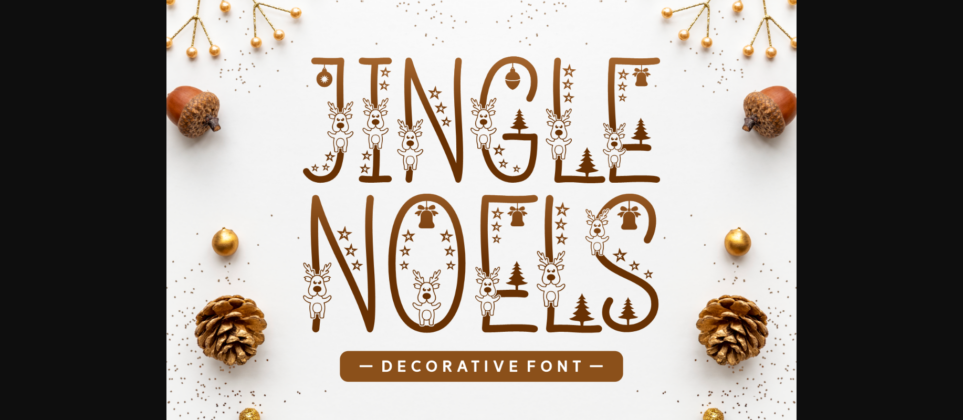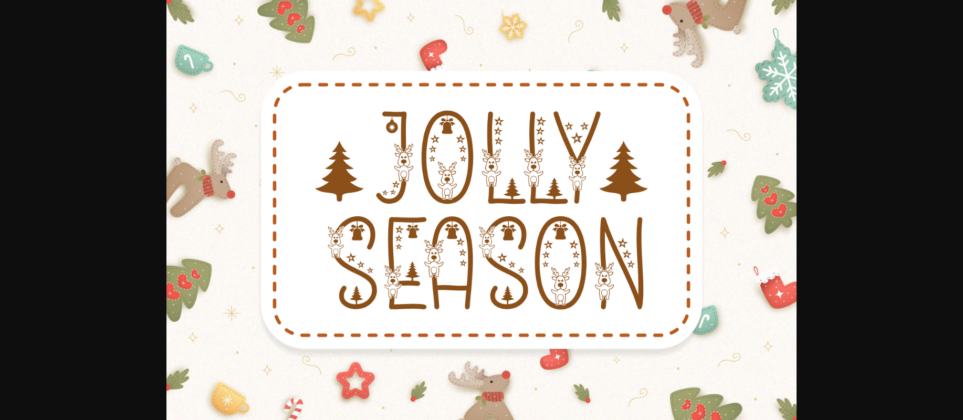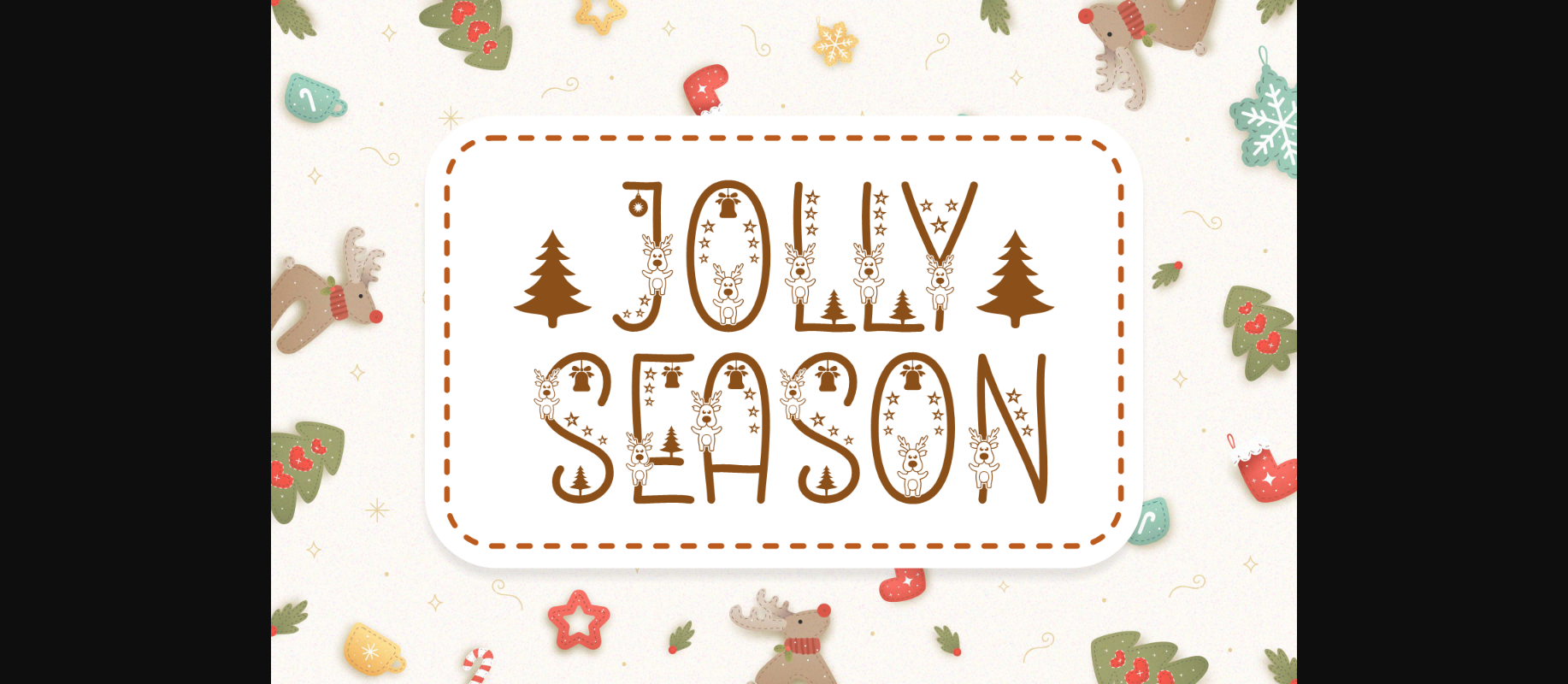
About Jingle Noels Font
Jingle Noels is the perfect decorative font for your Christmas projects. Its festive and cute ornaments will enhance all your holiday decor, greeting cards, wall art, and more!